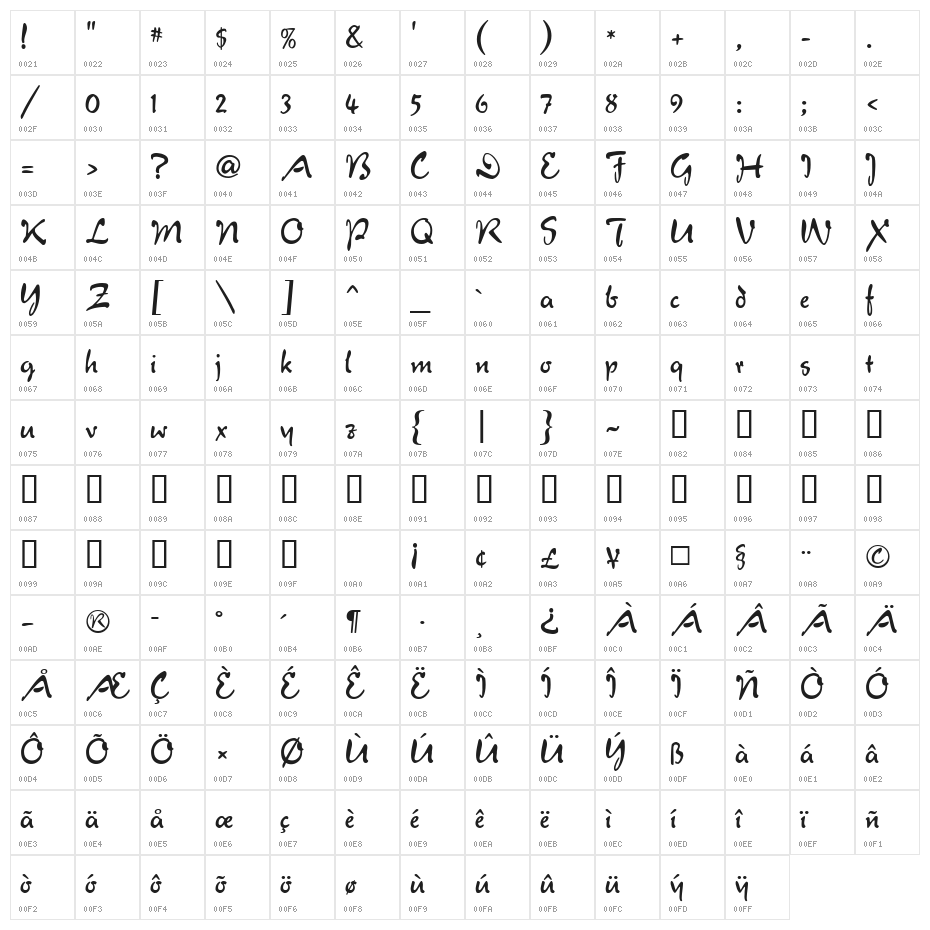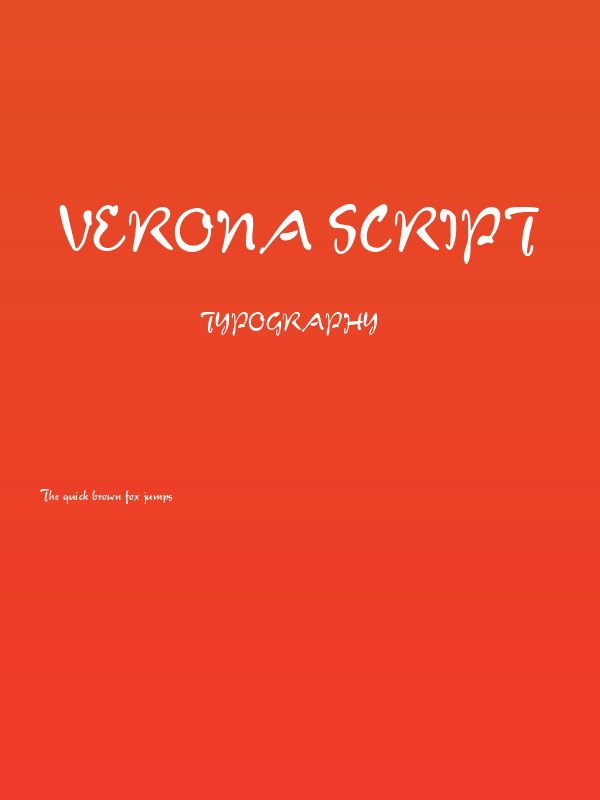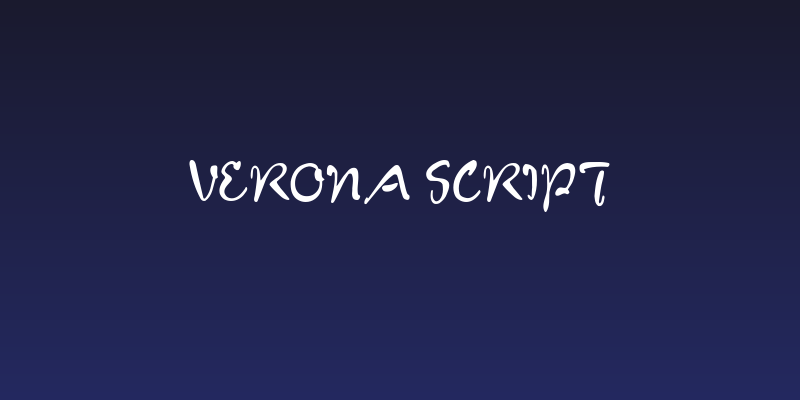
Verona Script Font
Fonts by Rick Mueller
| Caso d'uso | Logos, Invitations, Artistic designs |
| Progetti proposti | Ideal for wedding invitations, greeting cards, branding projects, and any design requiring a personal, artistic touch. |